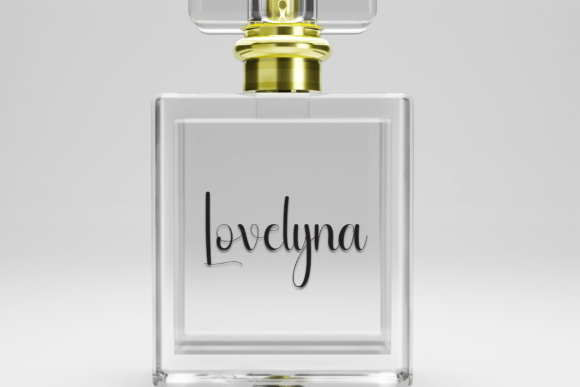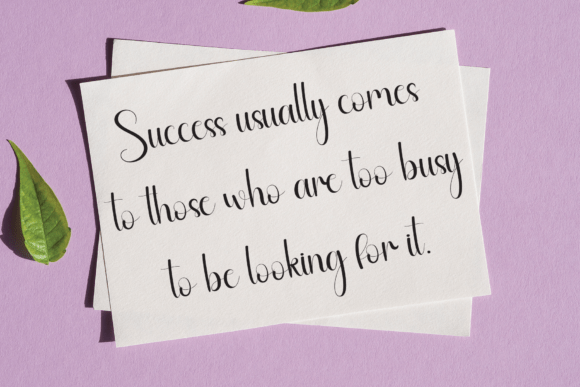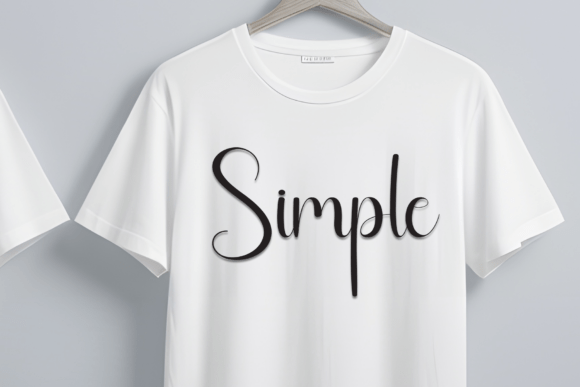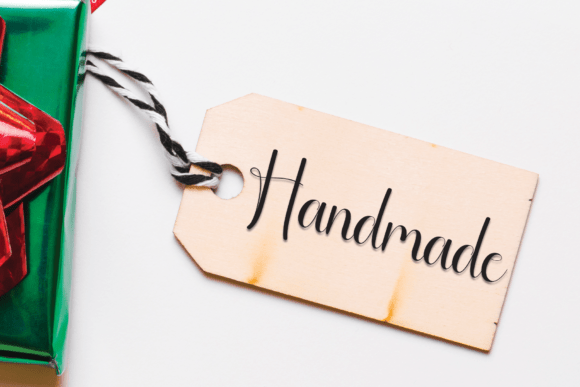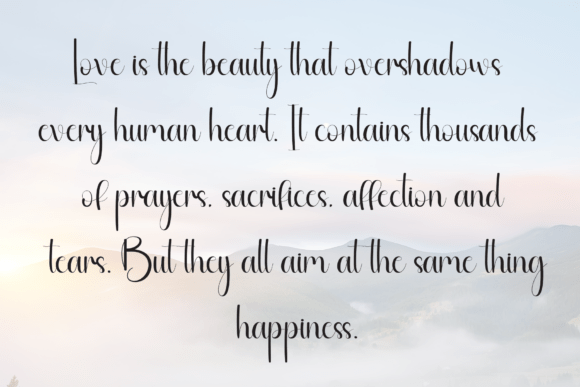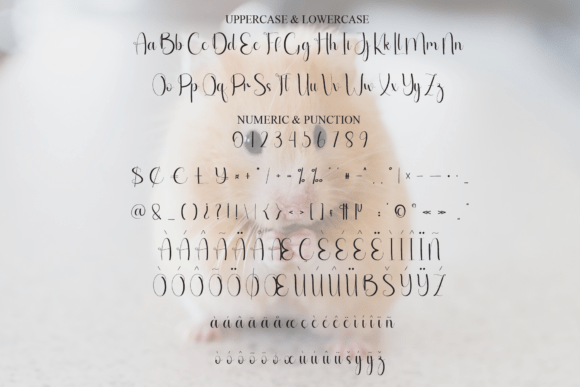
The Cutes Font: A Stylish Handwritten Script to Elevate Your Designs
An Honest Review of Cutes Font
Cutes has quickly become a go-to in my design toolkit, and for good reason. Here’s what I love about it:
- ✨ Fluid strokes and charming curves: Cutes has a beautiful, organic feel that adds a personal touch to any design.
- ✅ Versatility: This font works beautifully for logos, packaging, invitations, and more.
- 💫 Warmth and sophistication: Cutes brings a level of elegance and refinement to my designs, while still feeling approachable and friendly.
Of course, no font is perfect, and Cutes does have a few quirks:
- 🤔 Limited use in very small sizes: Like many script fonts, Cutes can get a bit lost when used in very small sizes (e.g., body text). It’s best used in headlines, titles, or larger display text.
- ⚠️ Some letter combinations may require manual kerning: As with any font, you may need to adjust the kerning in certain letter combinations to get the best results.
The Story Behind Cutes Font
Cutes was designed by a talented typographer who wanted to create a font that blended modern elegance with a playful touch. Inspired by the fluid strokes and charming curves of handwritten scripts, Cutes is the perfect combination of sophistication and whimsy. Whether you’re a designer, crafter, or creative hobbyist, Cutes is sure to become a favorite in your toolkit.
| Font Name | Cutes Font |
| What type of projects is Cutes best suited for? | Cutes is ideal for logos, packaging, invitations, and any project that requires a touch of elegance and sophistication. |
| Does Cutes support OpenType features? | Yes, Cutes supports OpenType features like ligatures and stylistic alternates, which can add more personality to your text. |